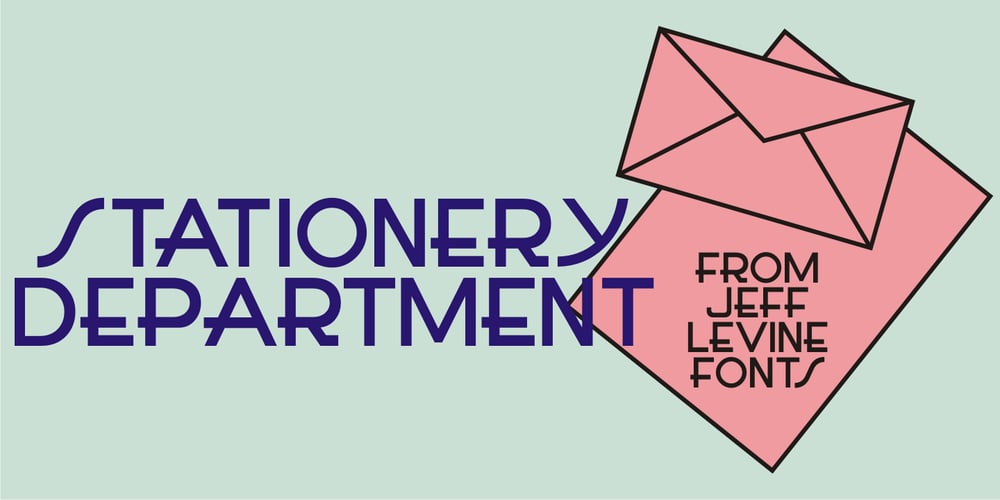
Stationery Department JNL Font Family was designed by Jeff Levine and published by Jeff Levine. Stationery Department JNL contains 1 styles and family package options. A 1940s-era package of “Herald Square” carbon paper sold by the F.W. Woolworth 5 & 10 cent stores offered up the hand lettered Art Deco design of Stationery Department JNL.